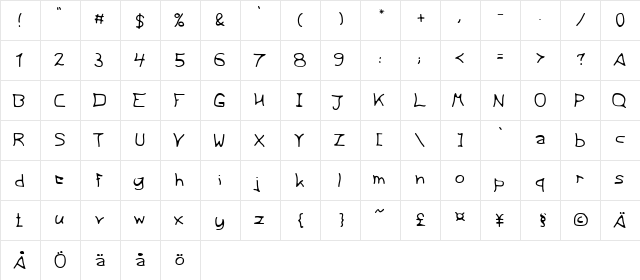
thirtyeight Regular
Design Context for thirtyeight Typeface
thirtyeight is a composed and adaptable typeface that performs quietly and consistently across a wide range of design contexts.